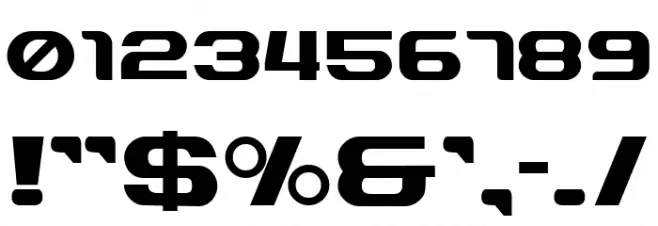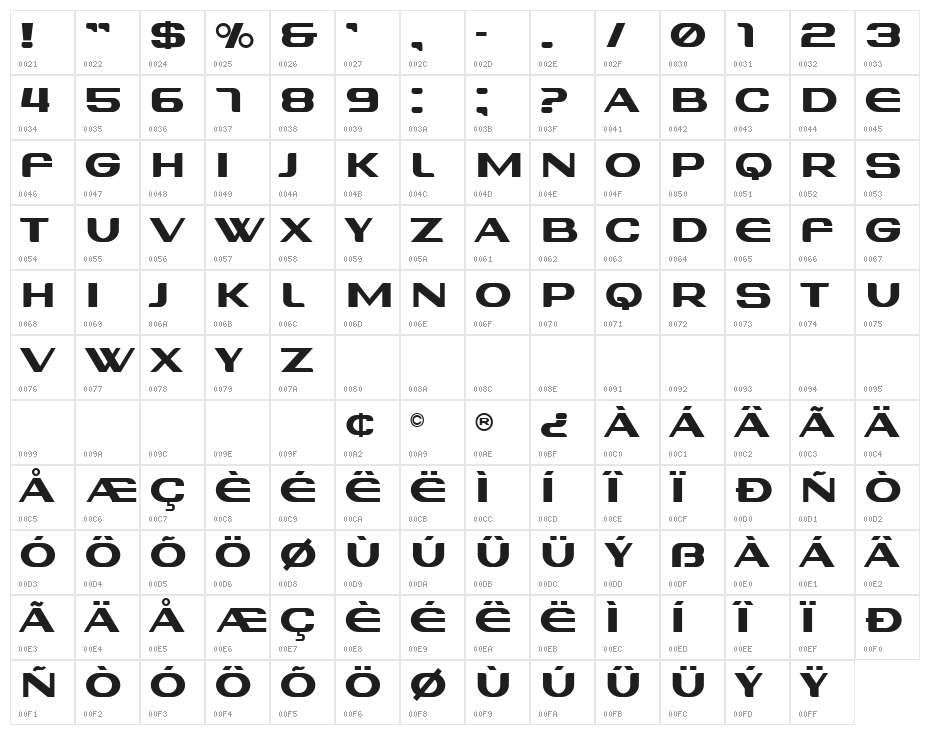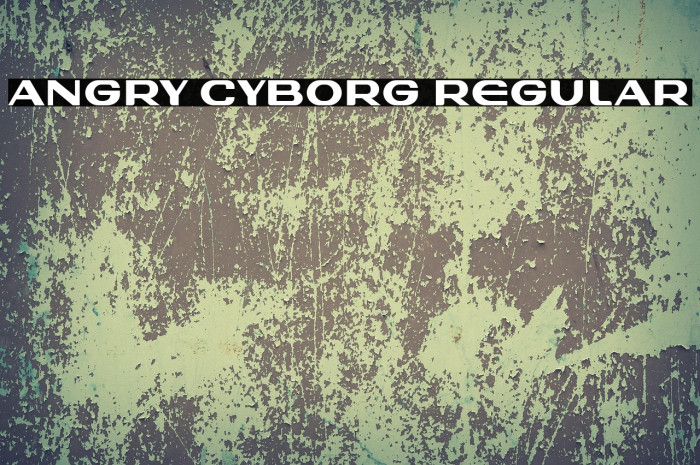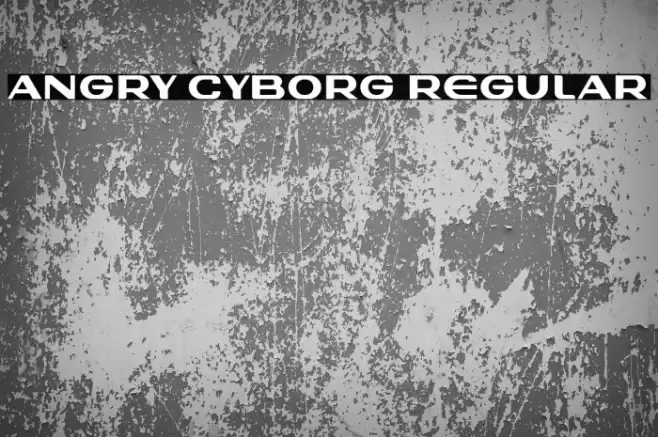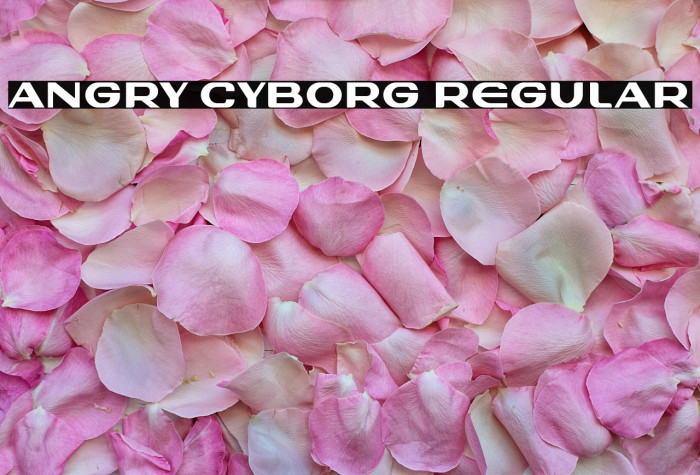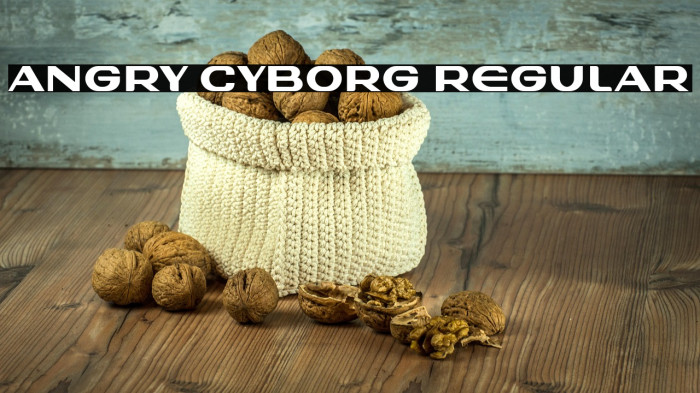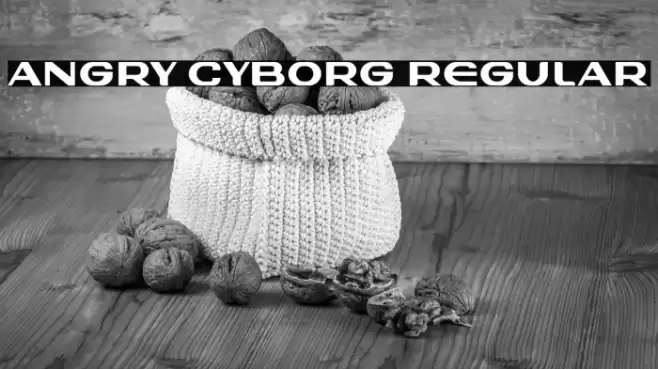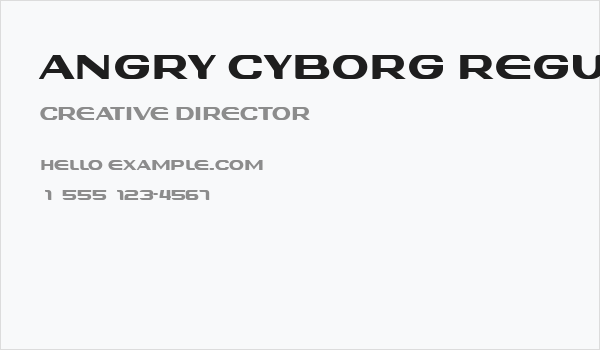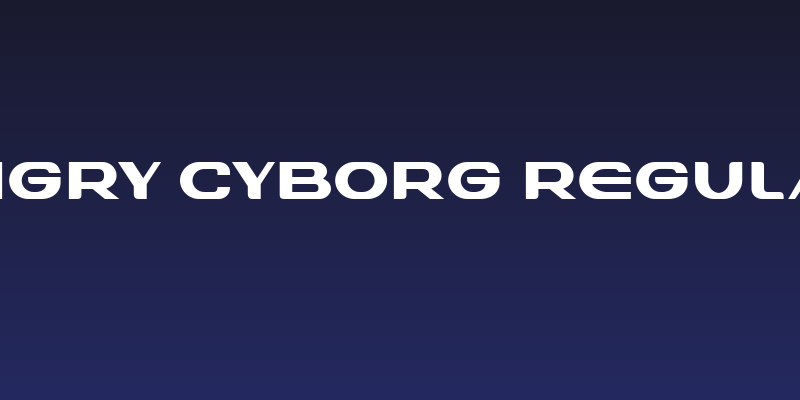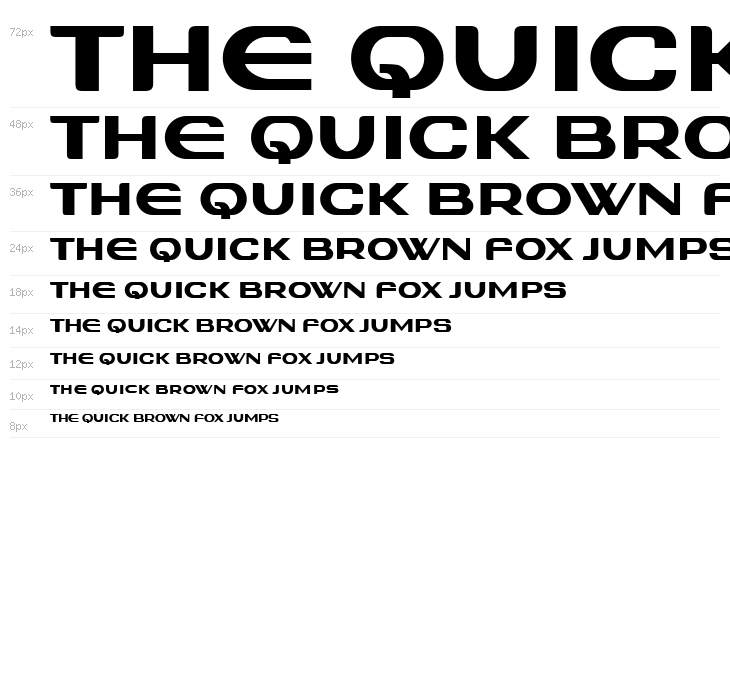
Angry Cyborg Regular Font
Angry Cyborg Regular Description
This typeface embodies a futuristic and mechanical aesthetic, characterized by its bold and angular letterforms. The design features a strong geometric structure with sharp edges and a consistent stroke width, creating a sense of precision and modernity. The uppercase and lowercase letters maintain a uniform appearance, with distinct cutouts and unique shapes that enhance its digital and robotic feel. The numerals and special characters follow the same design principles, ensuring a cohesive look across all glyphs. This font is ideal for projects that require a tech-savvy and contemporary vibe.